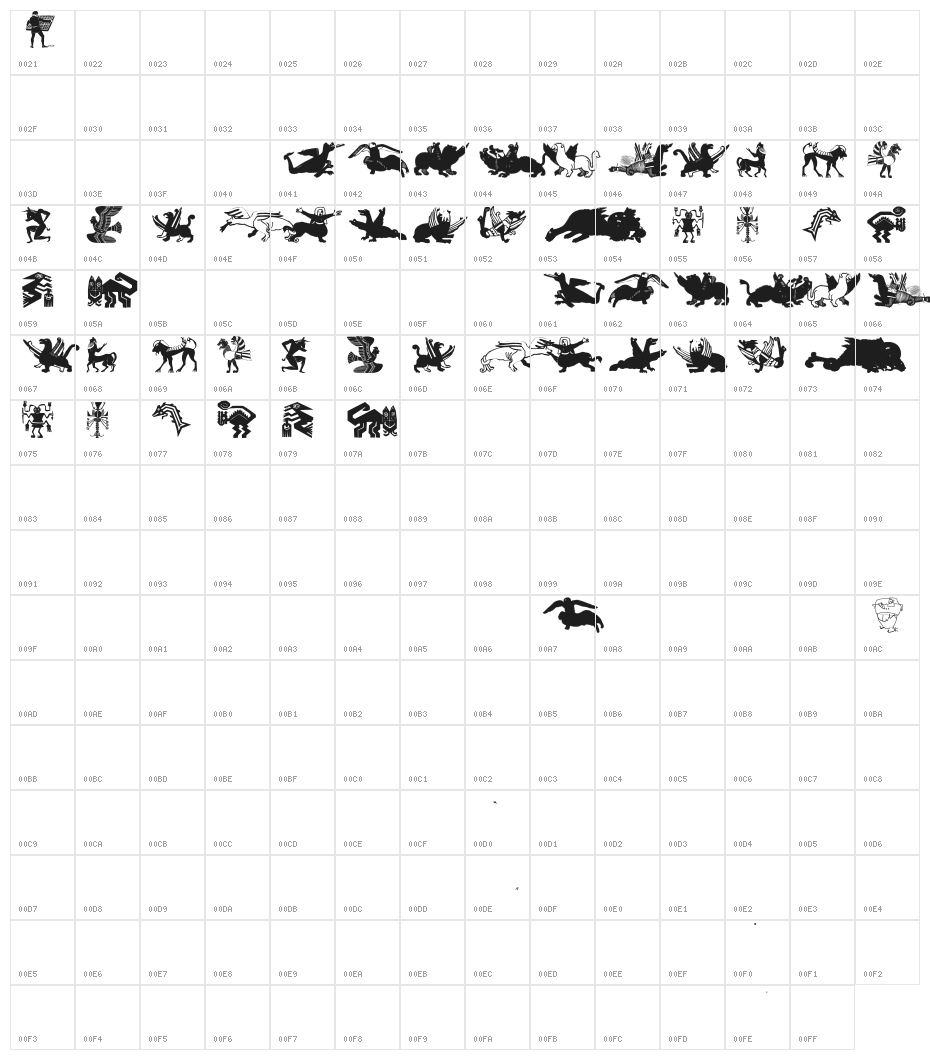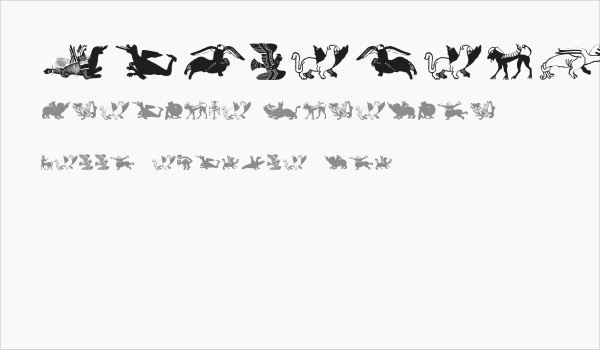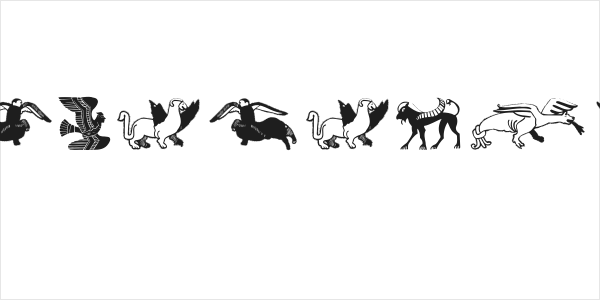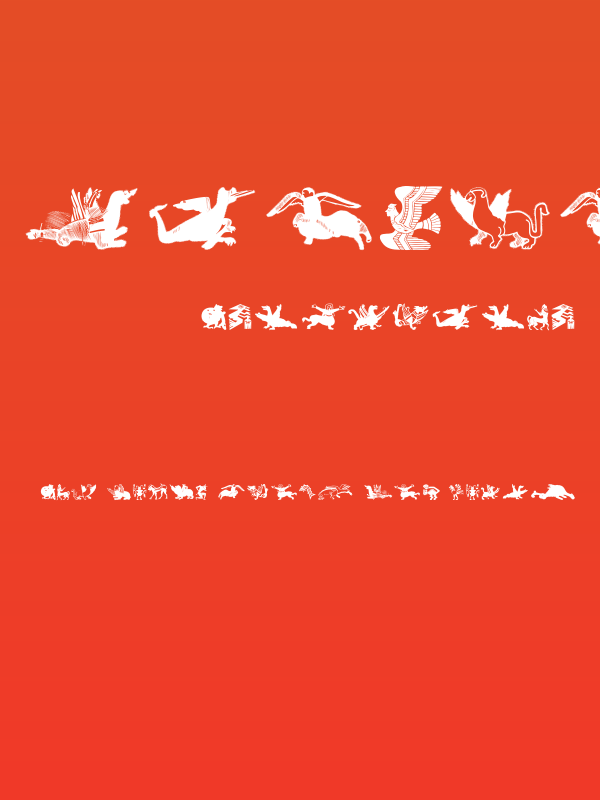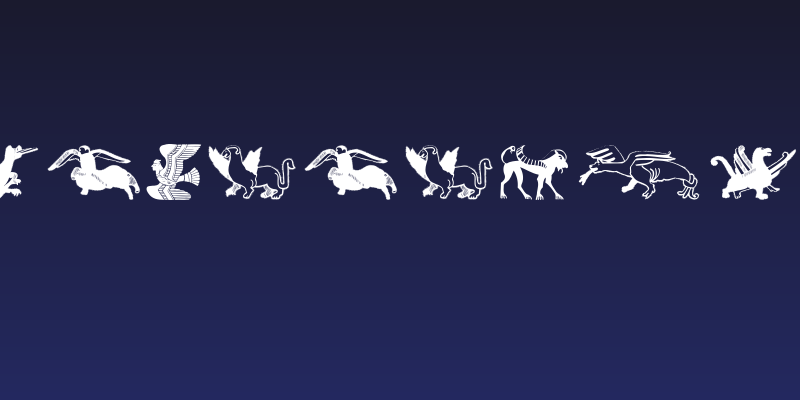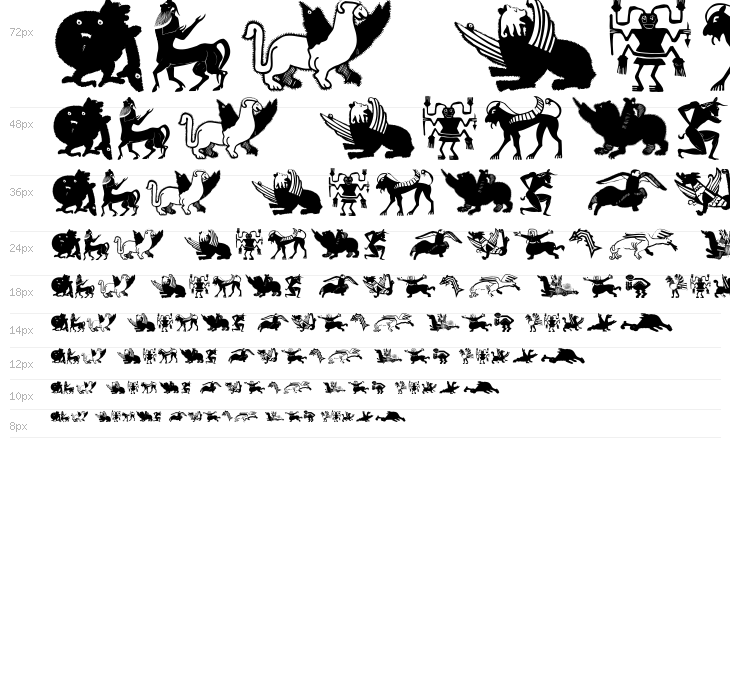
FableBeings Font
| Caso d'uso | Logos, Illustrations, Posters |
| Progetti proposti | Ideal for fantasy-themed posters, children's book illustrations, game design elements, and creative storytelling visuals. |